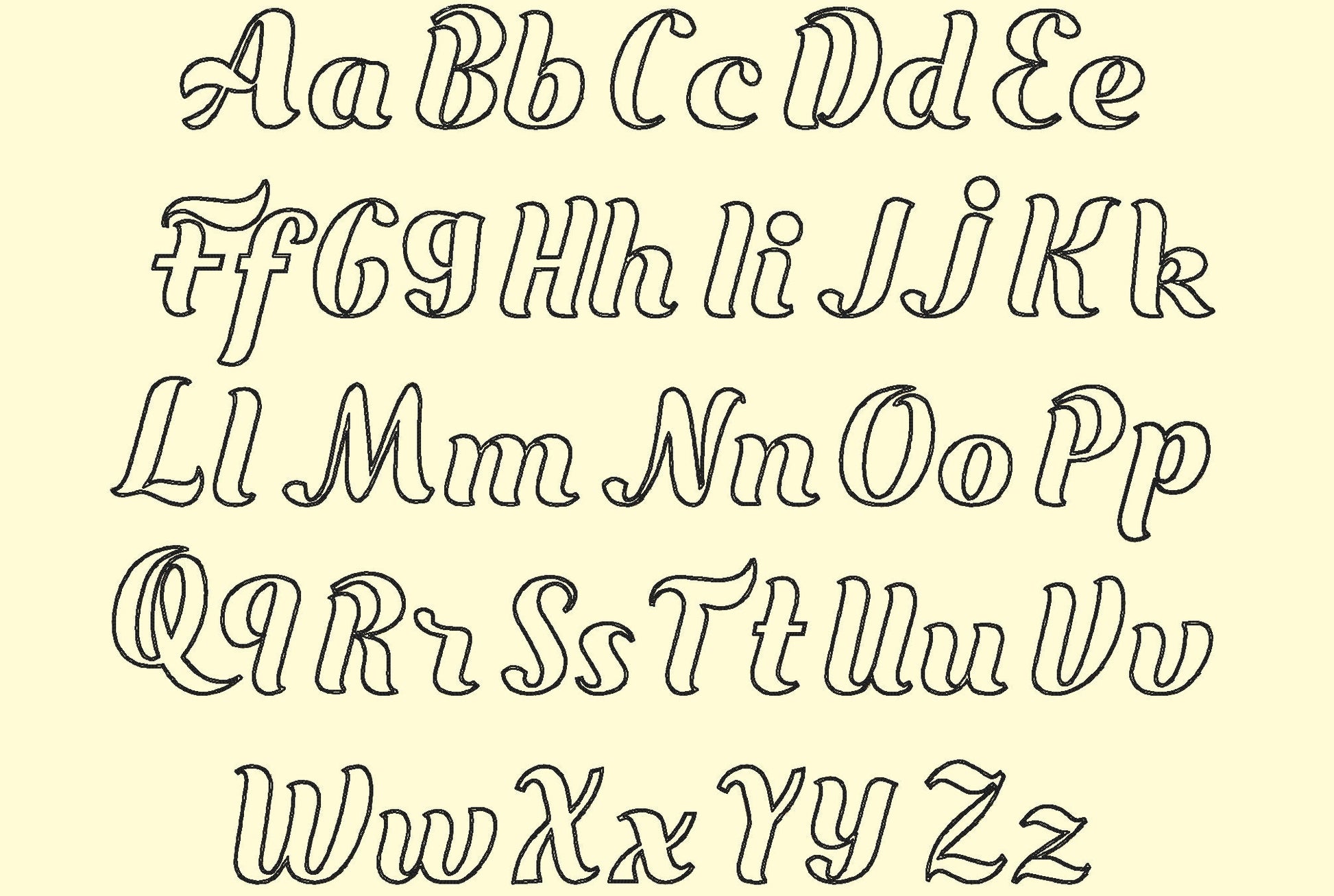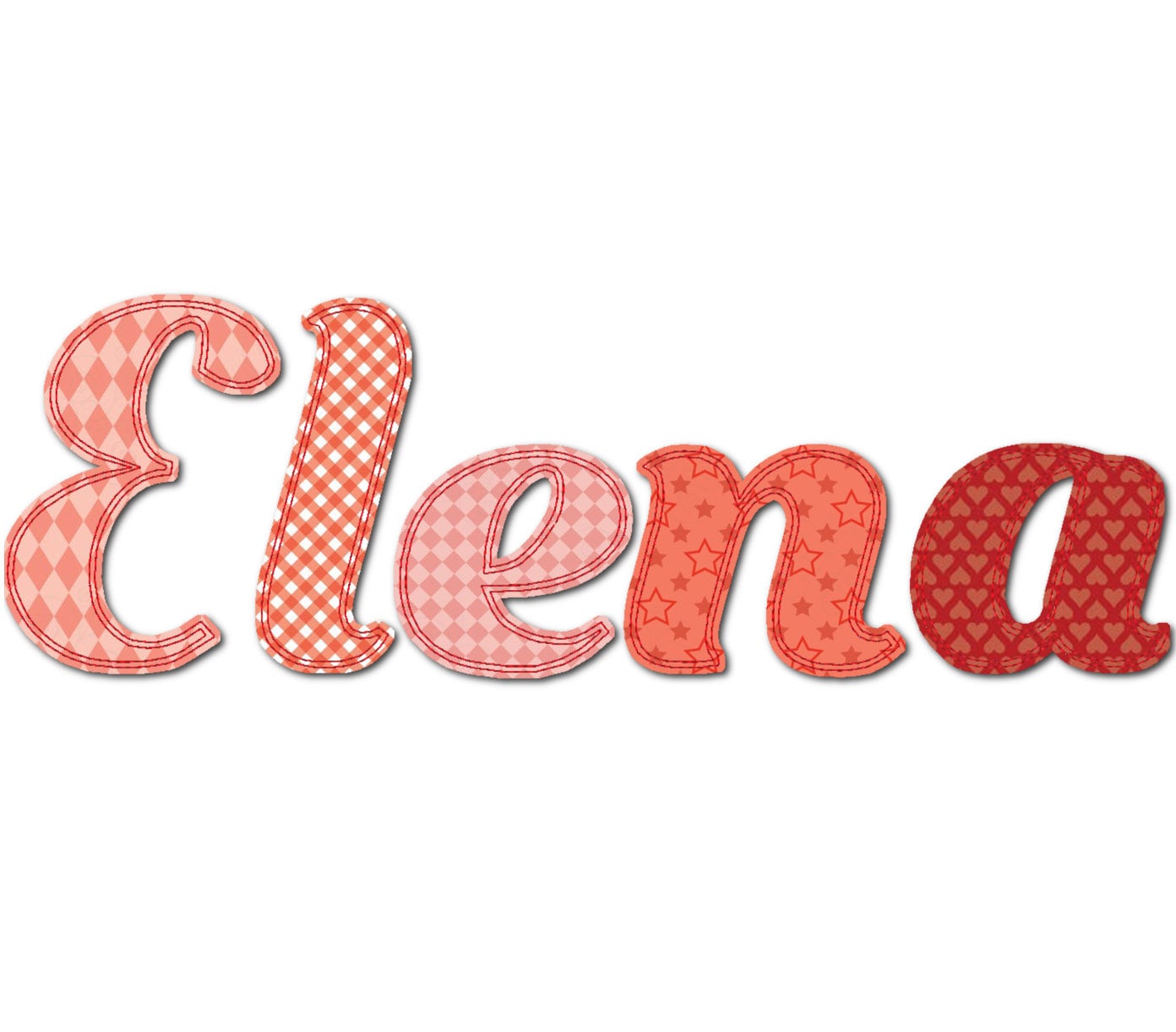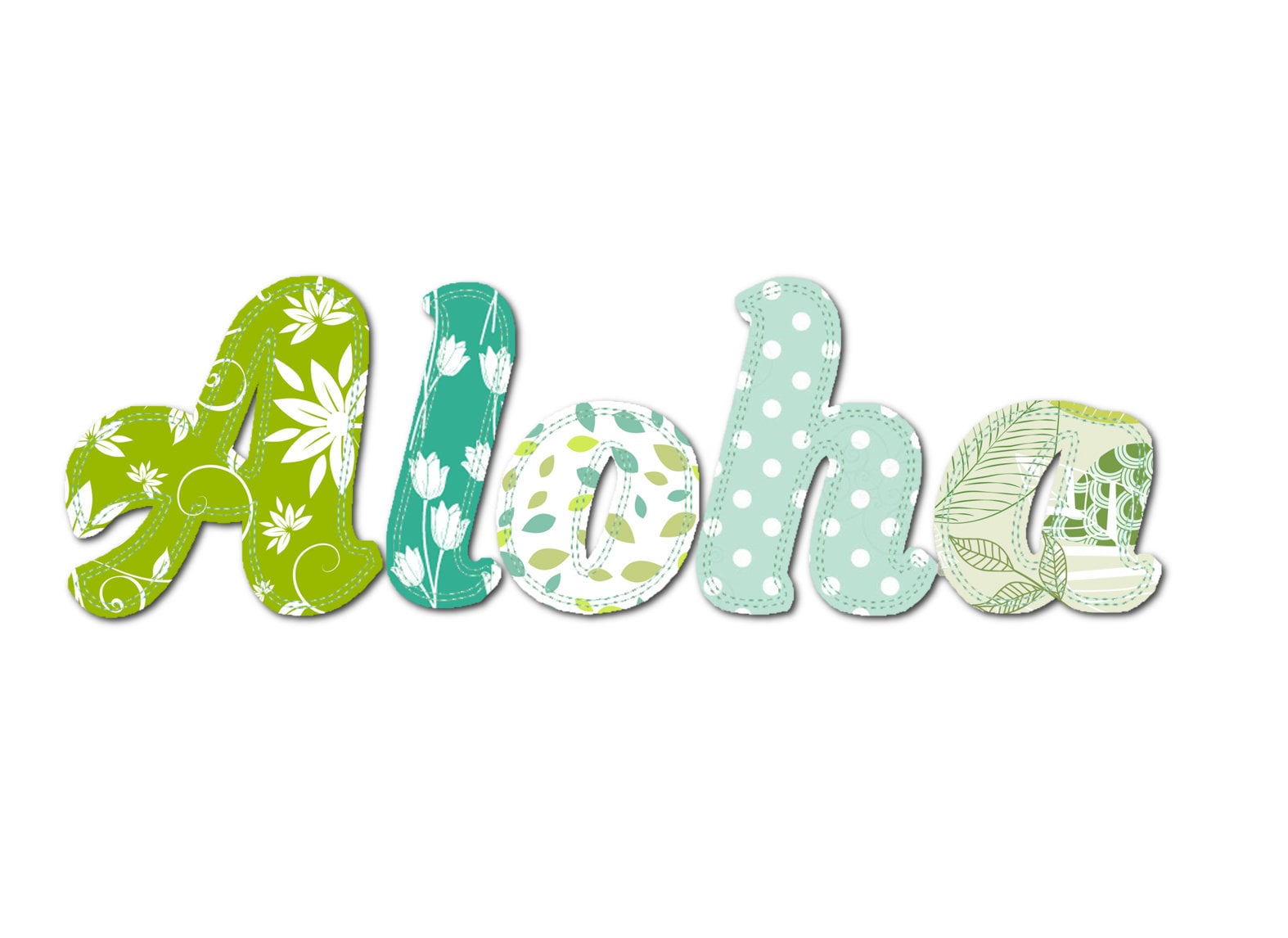
Summer Raggedy Edge Font Applique
Or click to open the linkA summer raggedy edge applique font: stitch, then trim the fabric for a soft frayed look. Cozy for names on quilts and kids' clothes.
Raggedy edge applique with uppercase and lowercase letters, numbers 0 to 9 and punctuation, in six sizes: 2.2, 2.7, 3.4, 4, 4.5 and 5.4 inches.
- Raggedy edge applique font
- Uppercase, lowercase, numbers 0 to 9, punctuation